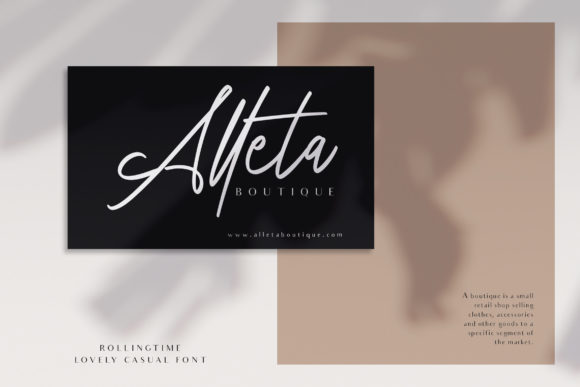
About Rolling Time Font
Introducing “Rolling Time” – a fashionable calligraphy brushed font that adds a touch of elegance to your designs. Whether you’re creating logos, wedding invitations, headings, or any other project, Rolling Time offers a versatile and sophisticated option.
The brush strokes of Rolling Time exude a sense of style and fashion, making it perfect for modern and trendy designs. Its fluid curves and dynamic lines create a visually appealing composition that catches the eye.
Rolling Time is designed with versatility in mind, allowing it to be used for various purposes. Whether you’re looking to create a distinctive logo that represents your brand’s identity, design captivating wedding invitations that leave a lasting impression, or craft attention-grabbing headings for your creative projects, Rolling Time delivers with its fashionable and elegant style.
The font’s PUA encoding provides easy access to a wide range of glyphs and swashes, allowing you to customize your designs effortlessly. This feature enables you to add unique and decorative elements, giving your creations a personalized and sophisticated touch.
With Rolling Time, your designs will stand out and make a statement. Its fashionable calligraphy brushed style adds a sense of glamour and creativity to your projects, ensuring that they leave a lasting impact on your audience.
In conclusion, Rolling Time is a fashionable calligraphy brushed font that brings elegance and style to your designs. Its versatility makes it suitable for a range of purposes, including logos, wedding invitations, headings, and more. With its PUA encoding, you have easy access to a variety of glyphs and swashes, allowing you to customize your designs effortlessly. Embrace the beauty of Rolling Time and let it enhance your projects with its fashionable and sophisticated charm.